Video: Type@Cooper: A beautiful dark heritage: a historical overview of blackletter in Mexican letterform culture with Jesús Barrientos Mora
There is a constant presence of blackletter in the Mexican landscape that can be spotted everywhere from Tijuana down to Cozumel. In the shape of cholo graffiti, sign painting for birria taco spots, tequila ice cream, tattoo parlours, gravestone carving and a myriad of unapologetic cross-breed lettering displaying creative new styles of blackletter, becoming an essential part of México’s letterform culture.
This presentation will explore the (most probable) reasons behind how and why a mediaeval calligraphy style became so deep-rooted in México as a legacy spreading over 500 years.
Book: Mexican Blackletter, by Christina Paoli
This lovely and interesting book is chock full of thoughtful details like alphabet comparisons and overlay — not just pretty pictures but lots of type geekery. The book has full spreads of the alphabets shown on the cover, in several formats. Definitely a favorite. I find some new tidbit every time I pick it up.
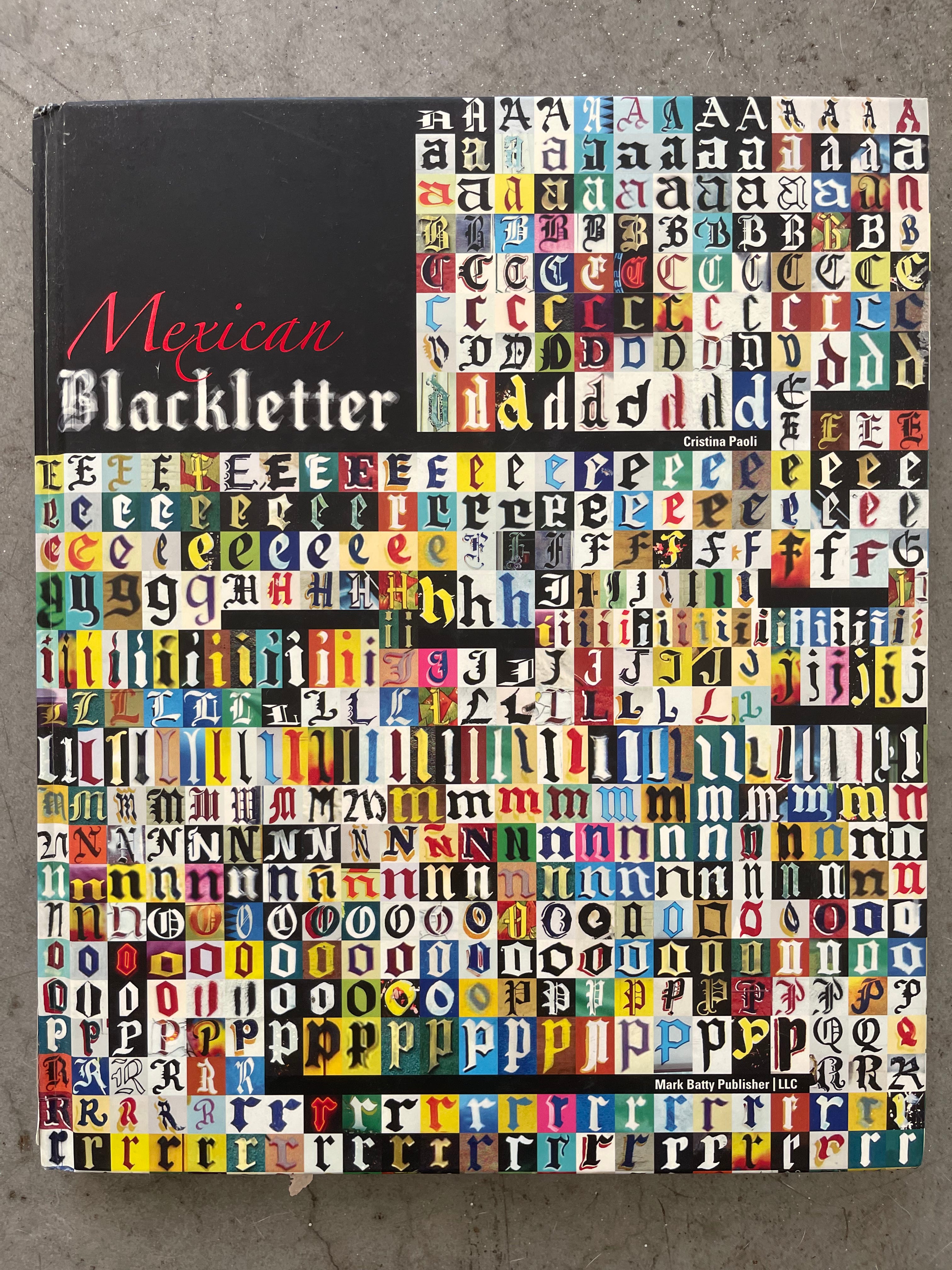
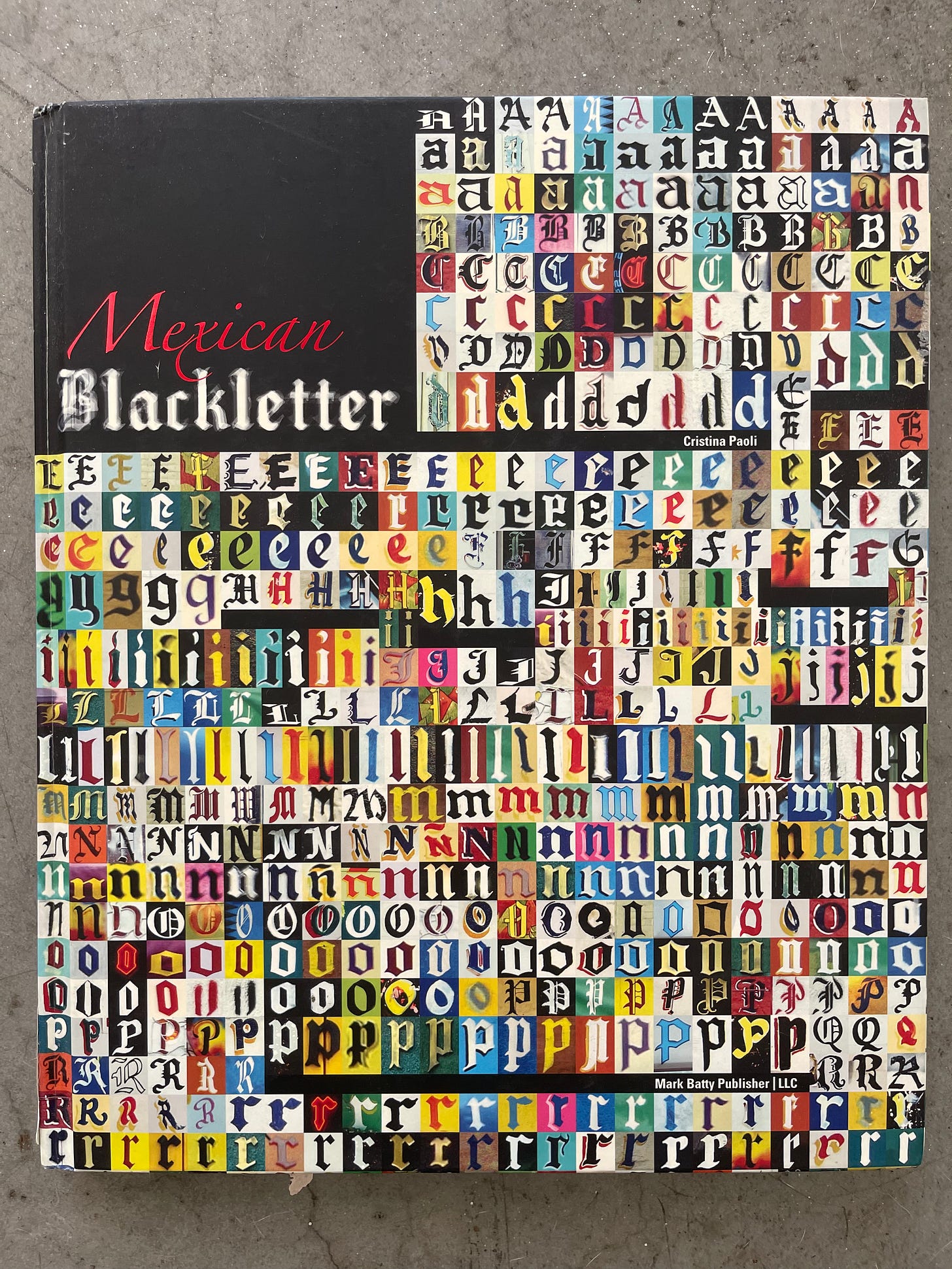
It's out of print but if you can find it used or in a library, "Blackletter: Type and National Identity" ed. by Shaw and Bain is an excellent book.